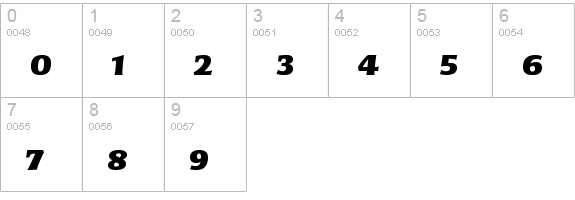
Conga Brava Std Black Font Details
Conga Brava Std Black is a maximum-weight, dramatic variant in the Conga typeface family \xE2\x80\x94 well suited to maximum-impact headlines, posters, and packaging.
Conga Brava Std Black font is a bold and striking typeface that exudes sophistication and elegance. With its sleek lines and sharp edges, this font commands attention and makes a powerful statement. Perfect for headlines, logos, and branding materials, Conga Brava Std Black font adds a touch of modernity and style to any design project. The best part? This stunning font is available for free download at FontsMarket.com. Simply visit the website and get your hands on this versatile typeface to elevate your creative projects to the next level. Don't miss out on the opportunity to enhance your designs with the sleek and impactful Conga Brava Std Black font today!